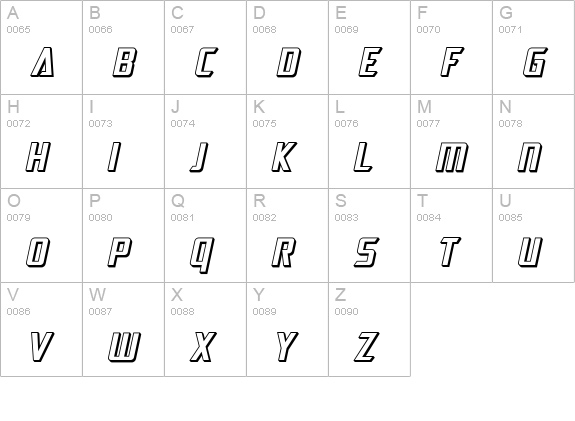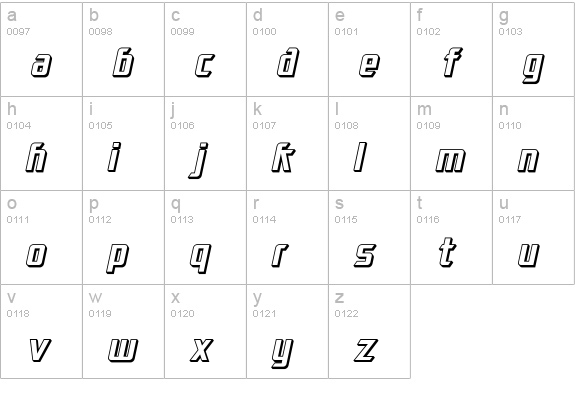
SF Electrotome Shaded Oblique Font Details
SF Electrotome Shaded Oblique is a distinctive, italic variant in the SF typeface family \xE2\x80\x94 well suited to design and typography projects.
SF Electrotome Shaded Oblique is a mesmerizing and futuristic font that will captivate any design enthusiast. Its unique combination of sharp angles and sleek curves creates a visual dynamism that is sure to make a statement in any project. With its shaded oblique style, SF Electrotome brings a sense of depth and dimension to your designs, adding an extra layer of sophistication. This font is perfect for modern and edgy designs, such as tech-related projects, gaming graphics, or futuristic branding. It effortlessly blends a sense of energy and innovation, making it an ideal choice for projects that aim to push boundaries. What sets SF Electrotome Shaded Oblique apart is the fact that it is freely available to download at FontsMarket.com. This means that you can access this stunning font without any cost, allowing you to enhance your designs without breaking the bank. Whether you are a professional designer or a hobbyist, SF Electrotome is a font that will inspire and elevate your creative endeavors. Its versatility and eye-catching aesthetics make it a valuable addition to your font collection. Download SF Electrotome Shaded Oblique today and discover the limitless possibilities it brings to your design projects.